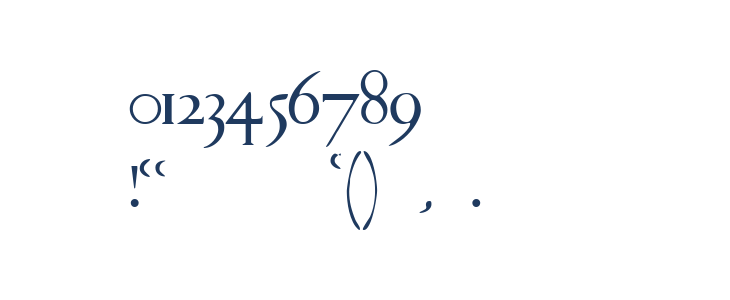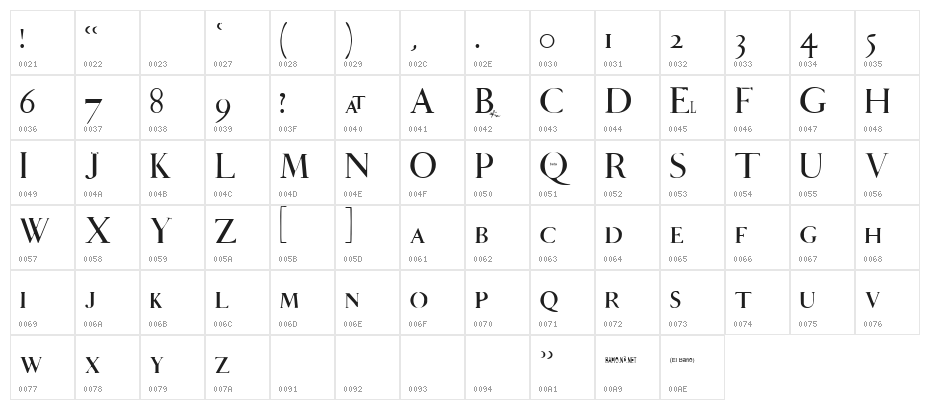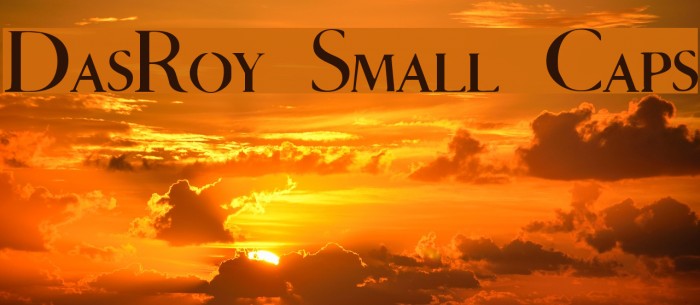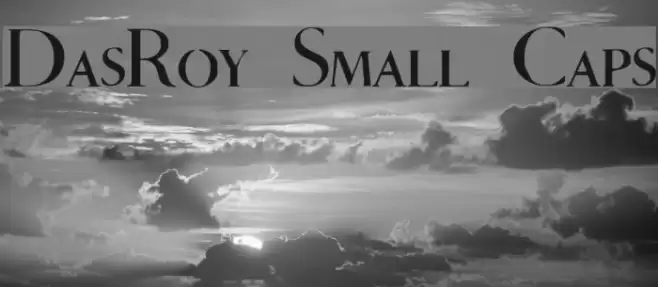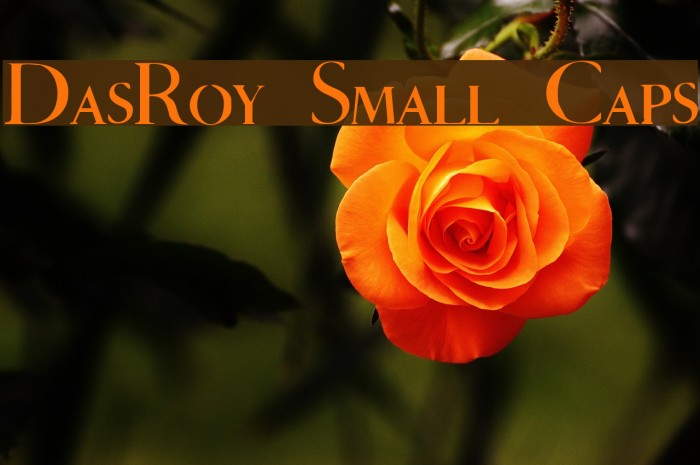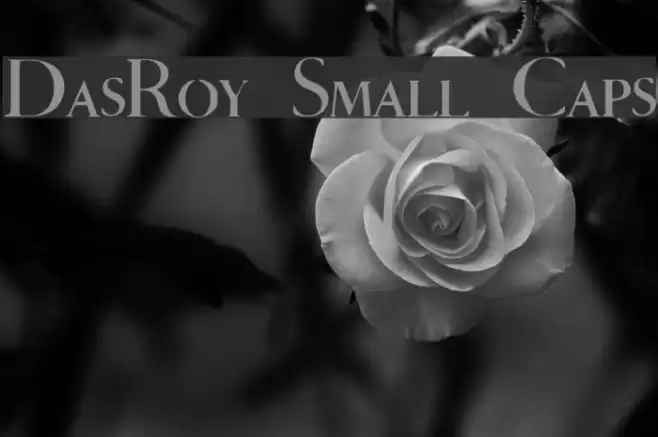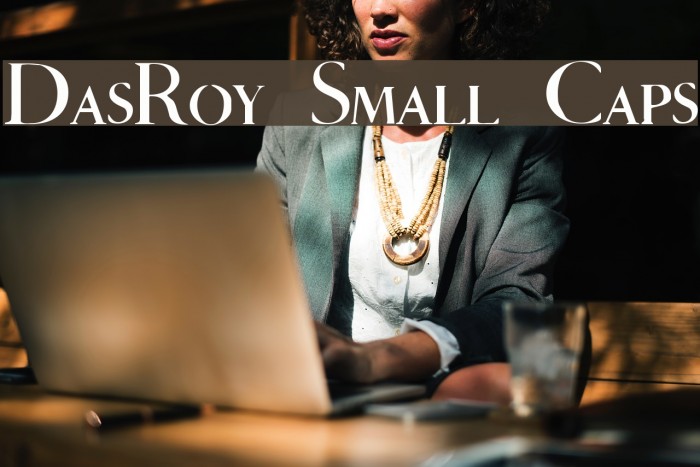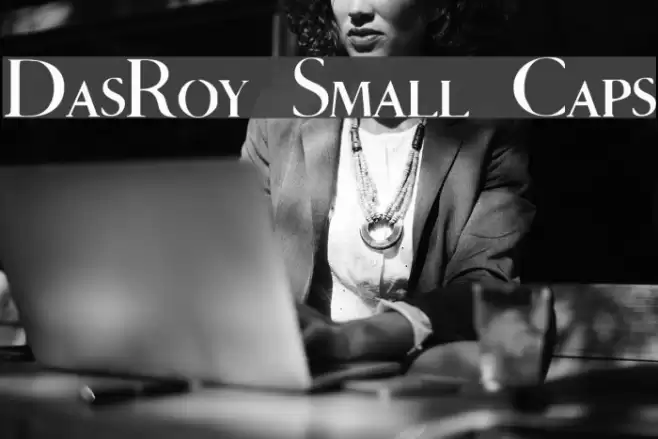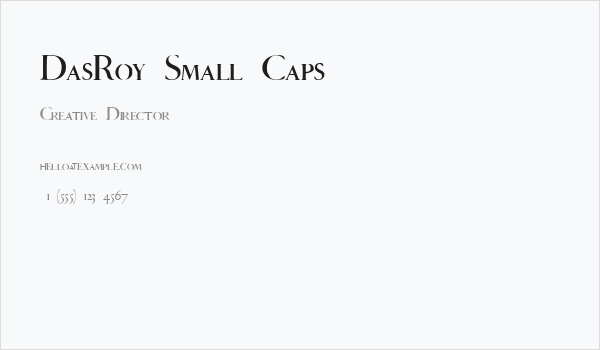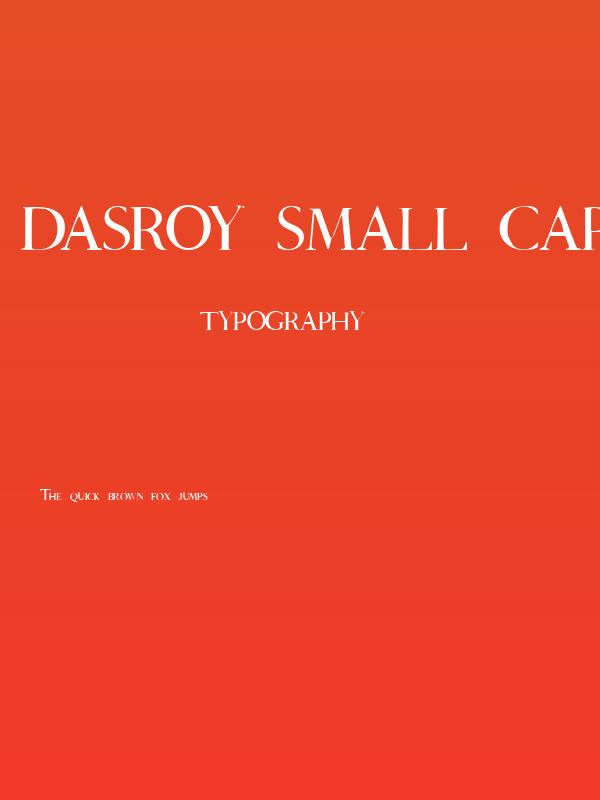
DasRoy Small Caps Font
DasRoy Small Caps Description
This font exhibits a classic and elegant style with a high contrast between thick and thin strokes, giving it a sophisticated appearance. The uppercase letters are designed with sharp serifs and a refined structure, while the numerals maintain a consistent style that complements the alphabet. The special characters are crafted with the same attention to detail, ensuring a cohesive look across all glyphs. The overall design is reminiscent of traditional serif fonts, yet it incorporates modern elements that make it suitable for contemporary use.
| Proposed Projects | Ideal for luxury branding, editorial design, formal invitations, and high-end product packaging. |